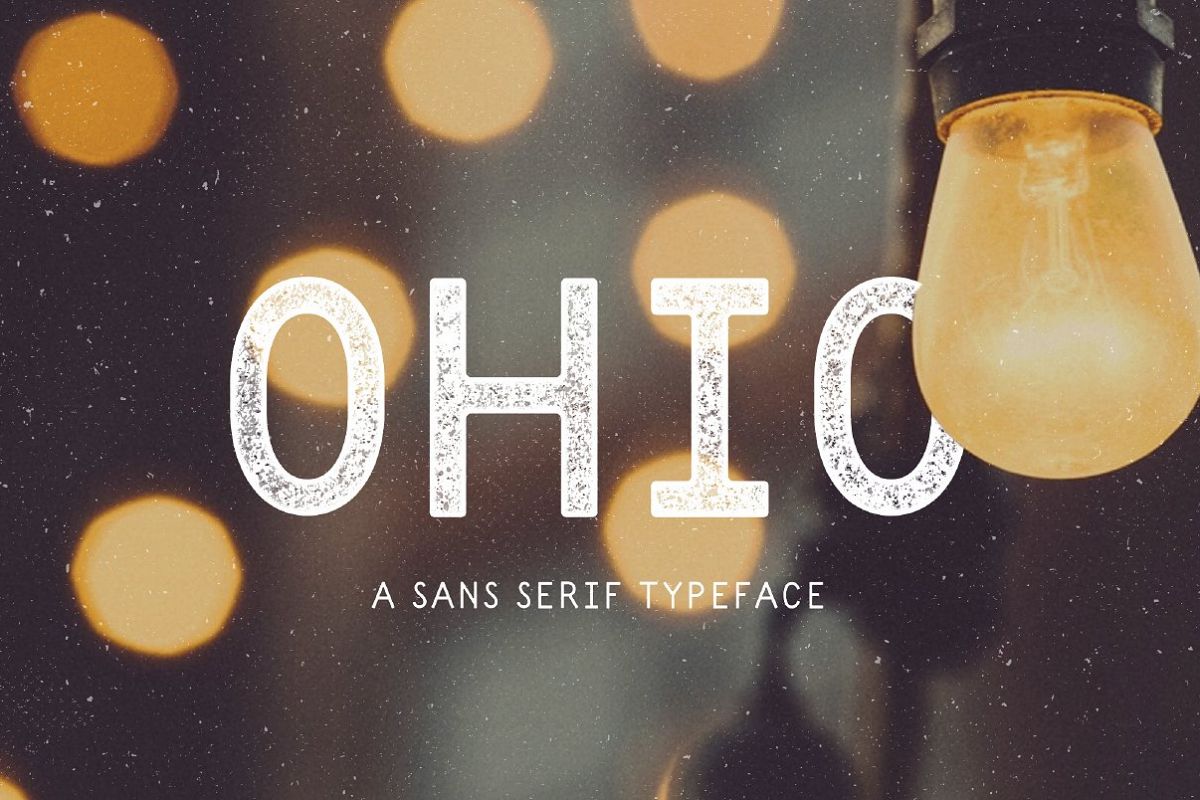
Ohio
is hand crafted sans-serif typeface with 3 weights, Regular, Light and Outline. The typeface consists of an uppercase alphabet, along with numbers and symbols.